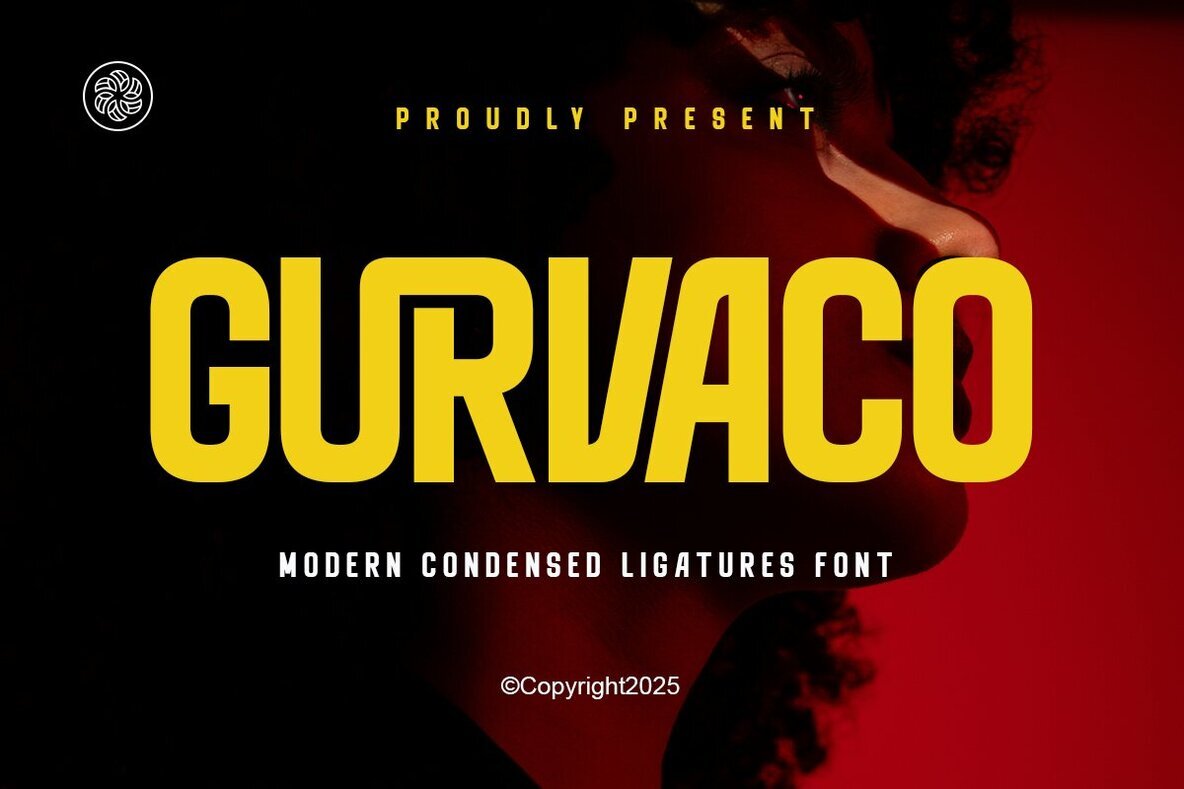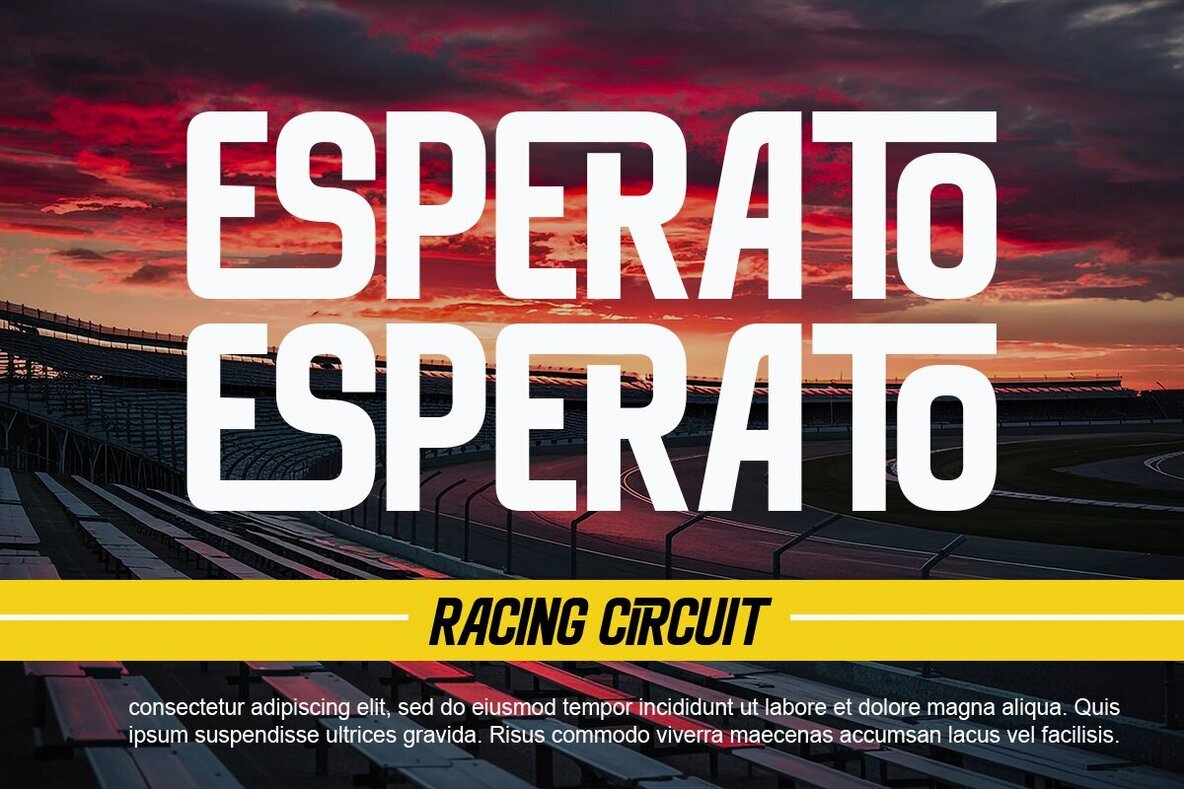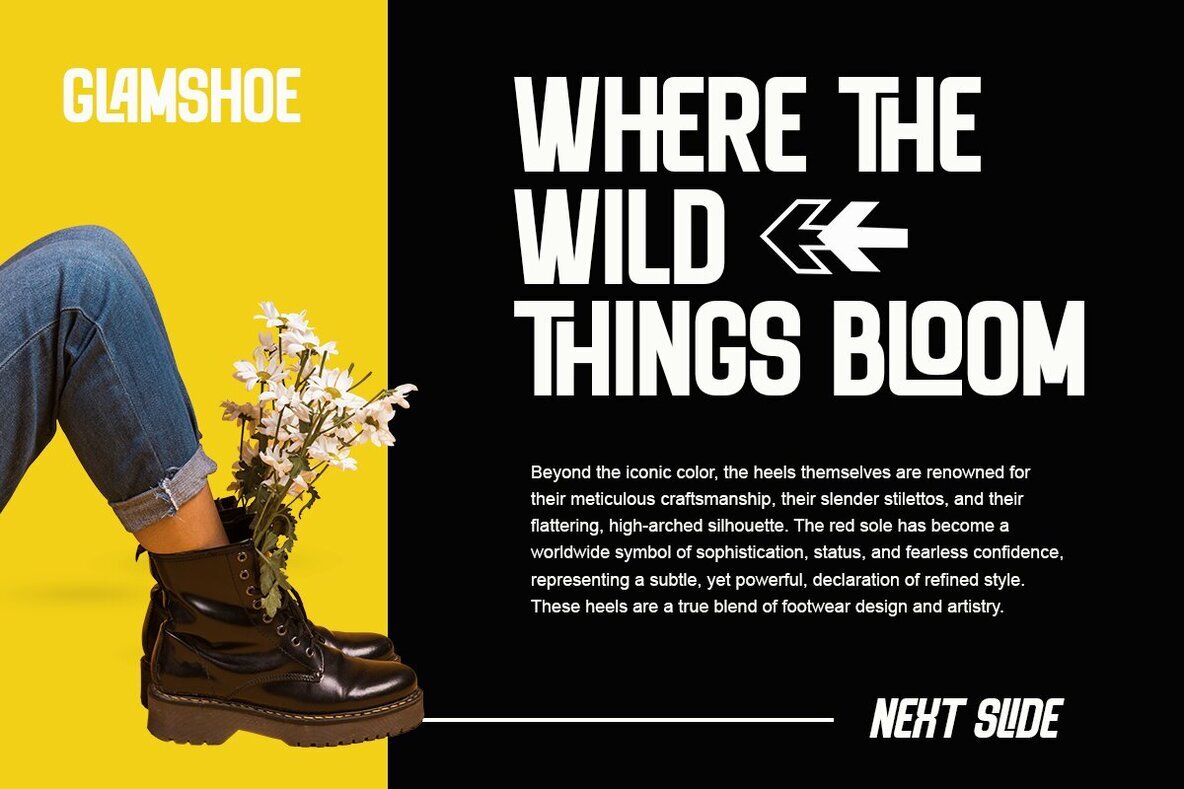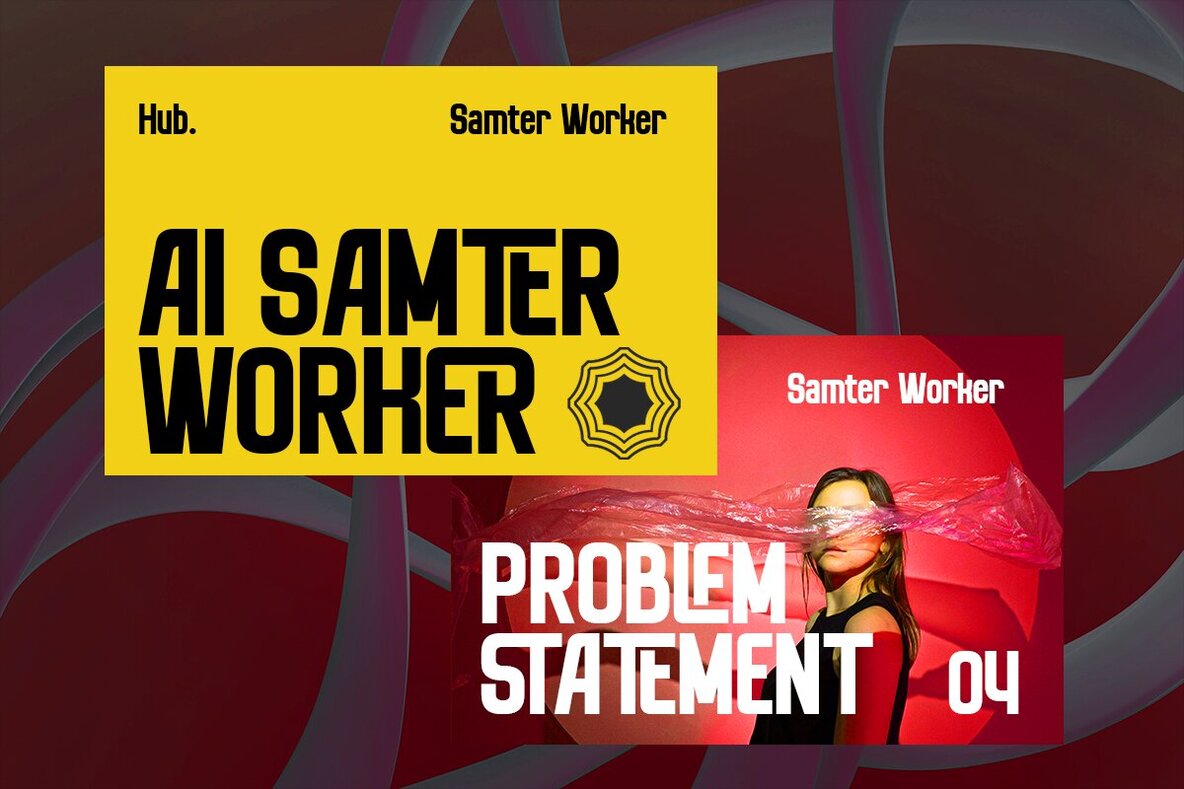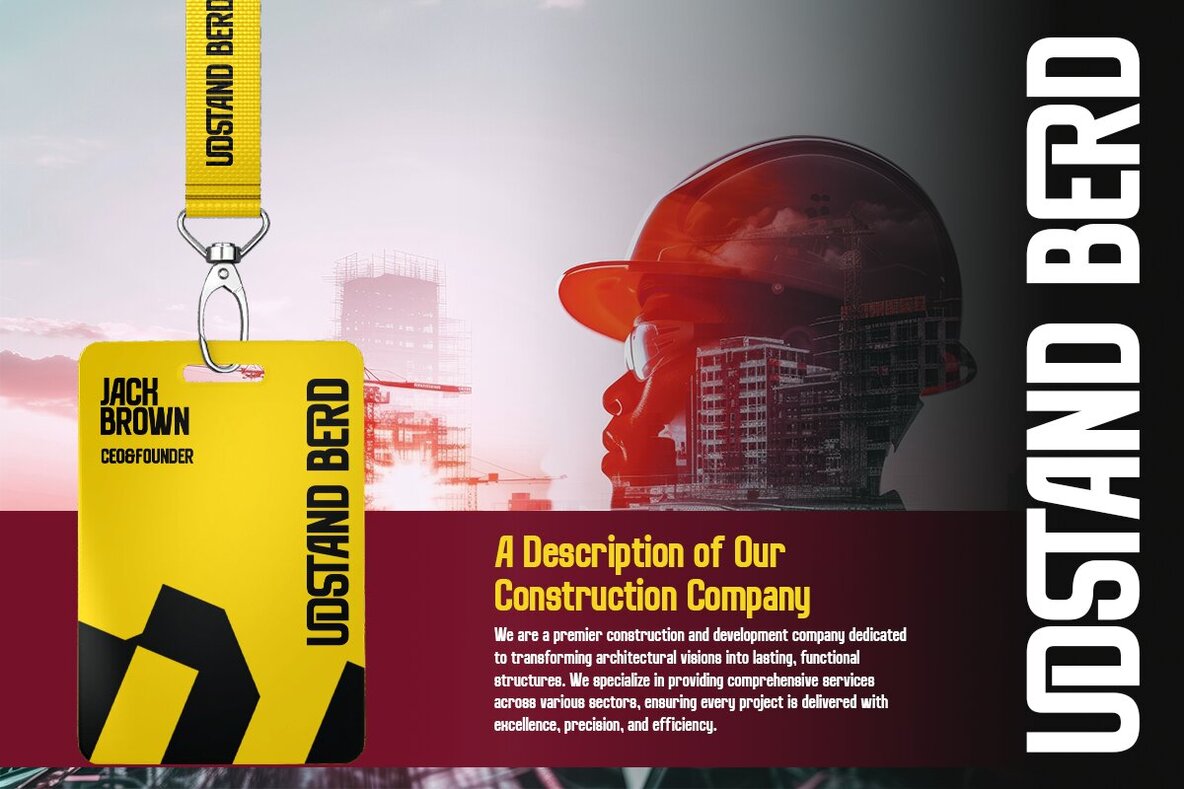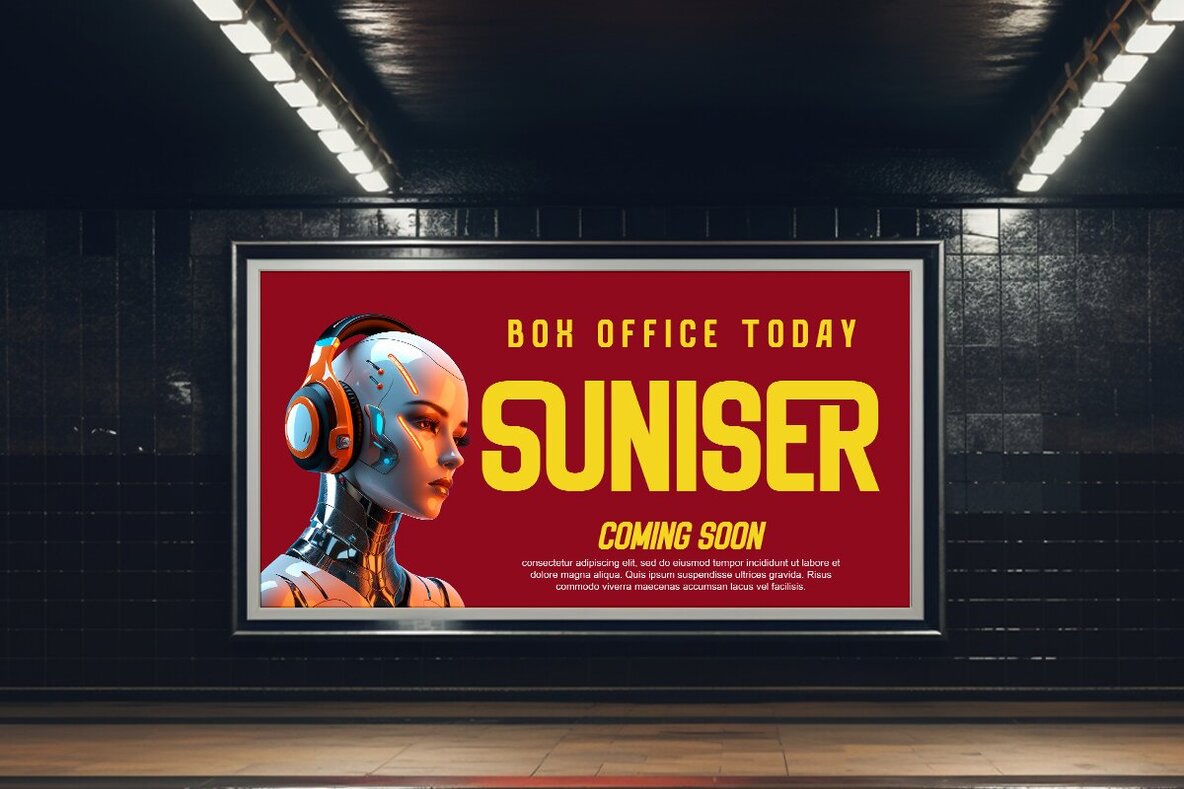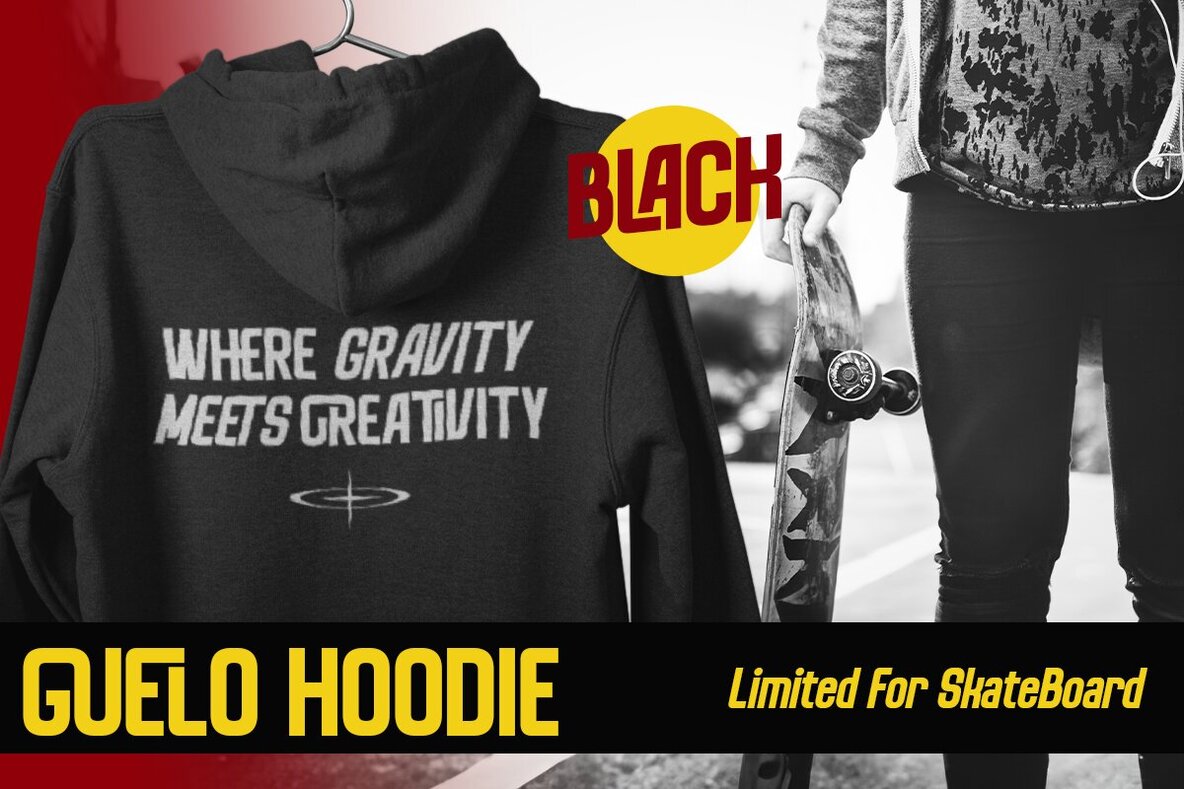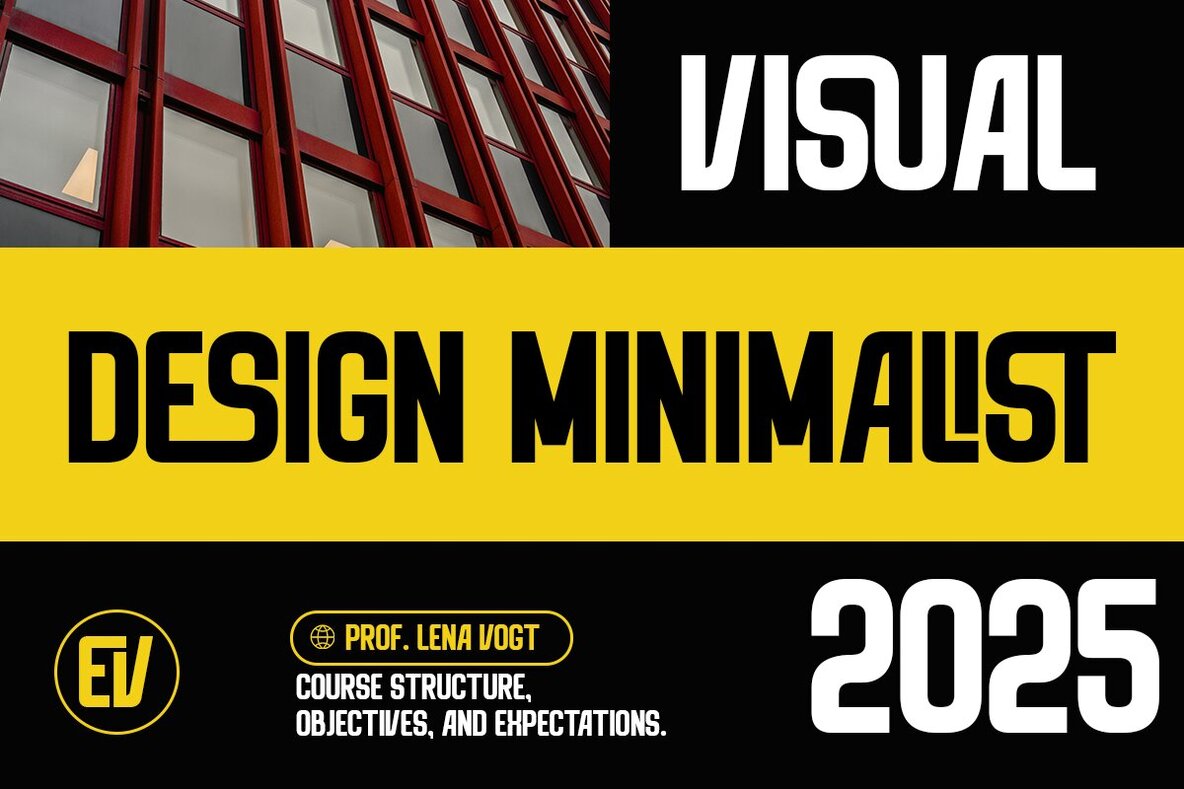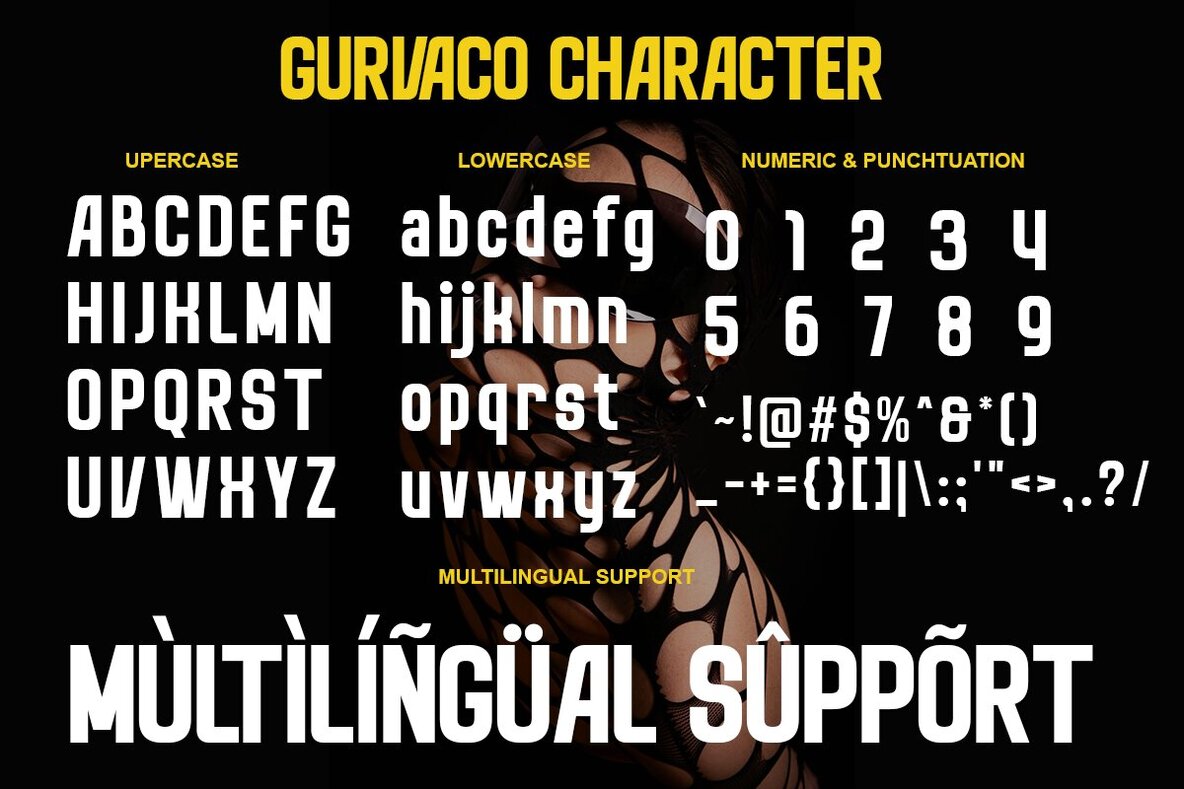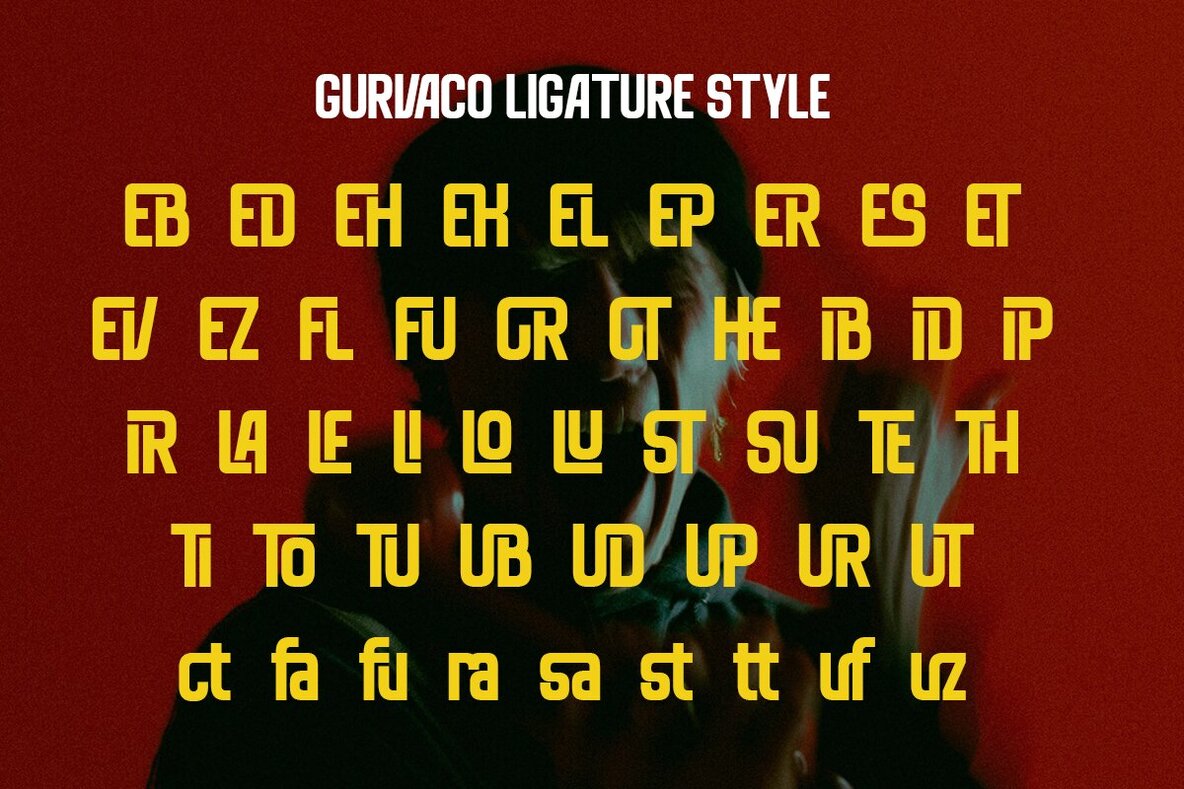
Gurvaco Font
Gurvaco stands out with its modern, condensed design and striking ligature style. The ultra-compressed letterforms deliver clarity and presence, making every headline and display bold and memorable—even when space is limited. Precision and thoughtful weight variations add to its visual strength, bringing a refined edge to any project. This font is well suited for logo design, packaging, and book covers, where both space efficiency and impactful visuals are essential. With dynamic ligatures and multilingual support, Gurvaco adapts to diverse creative needs while maintaining legibility across applications.Gurvaco Modern Condensed Sans Serif Font